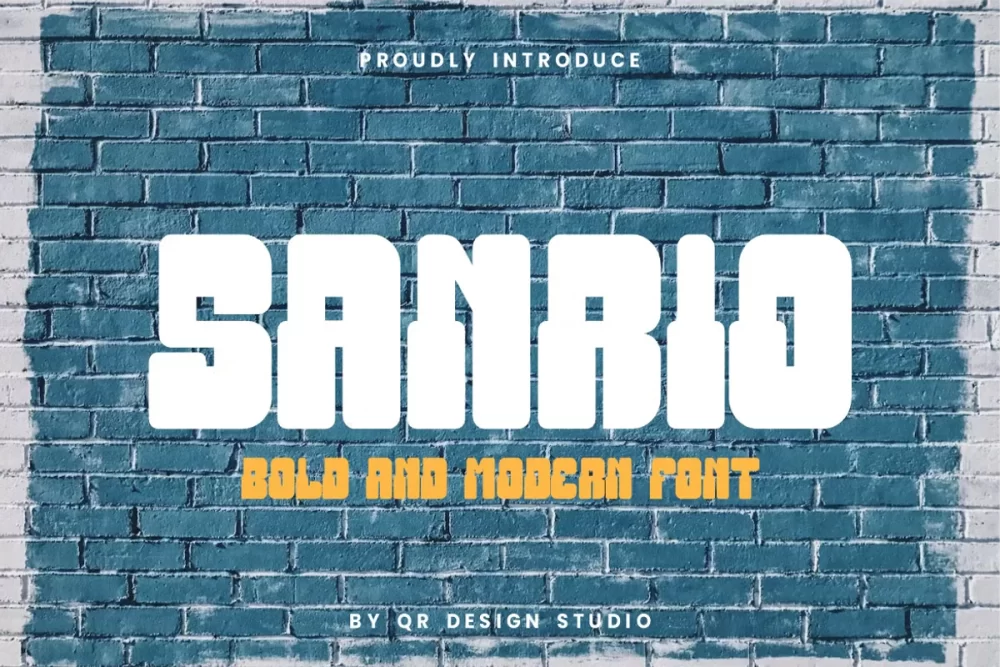
Sanrio Font
Sanrio Font
Sanrio is a bold and authentic display font. The font is suitable for any branding project like poster, logo, sport, and many more. Outstanding in a wide range of contexts.